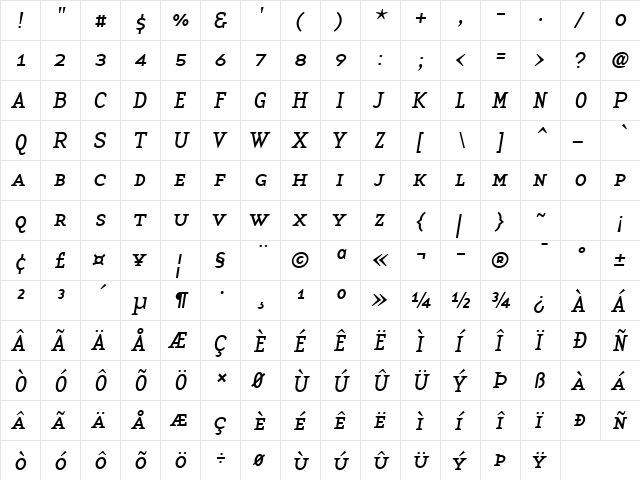
BaseTwSerifSmallCaps Italic
Design Context for BaseTwSerifSmallCaps Typeface
BaseTwSerifSmallCaps brings classic typographic sensibility to the table — its serifs and measured letterforms reflect centuries of print heritage. The dynamic lean of this cut emphasises speed and emphasis in any layout.